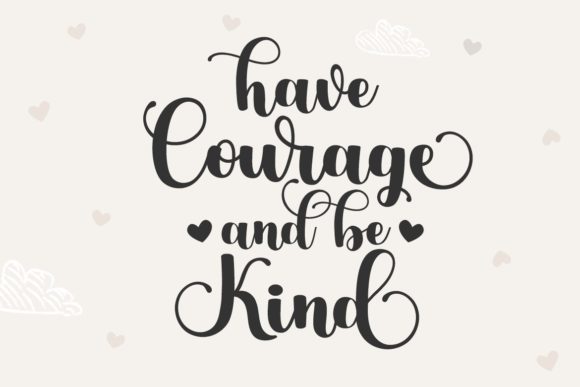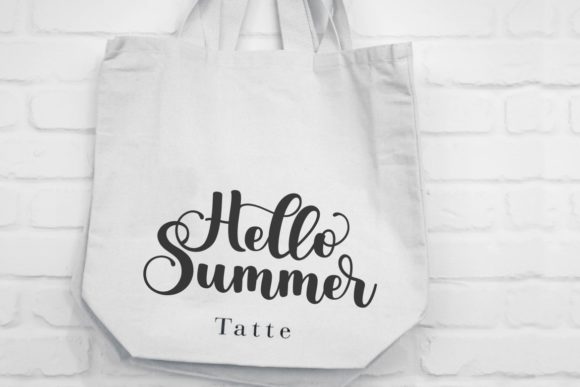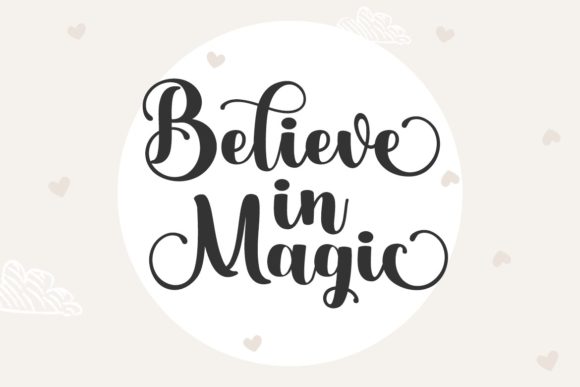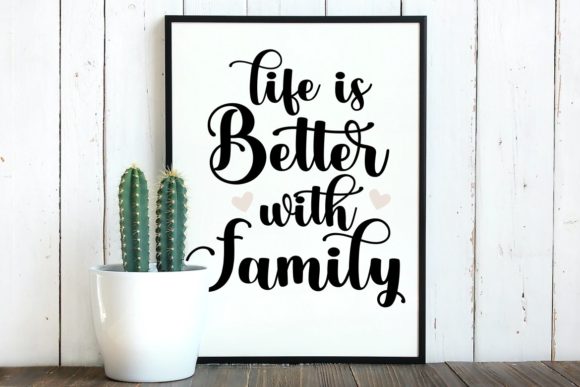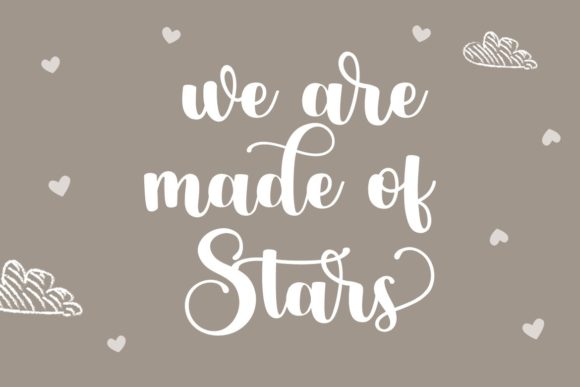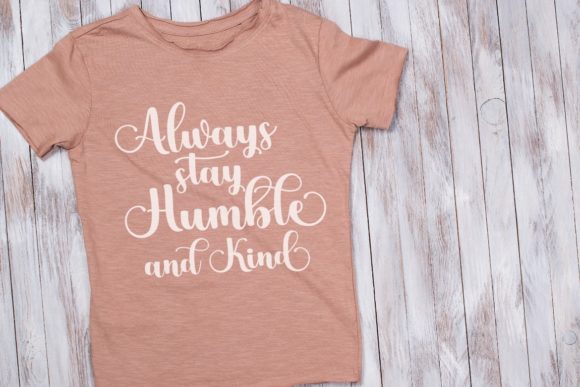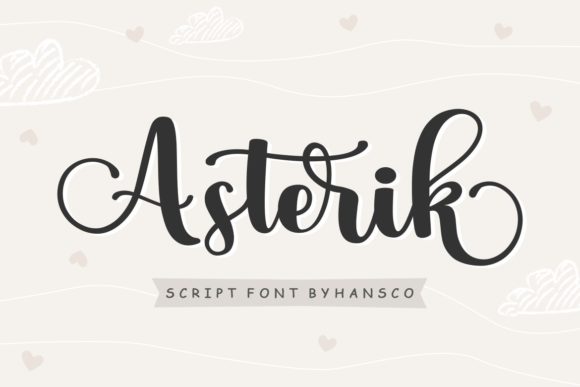
Asterik Font: Elevate Your Designs with Elegance and Boldness
In the realm of typography, few fonts manage to strike a balance between elegance and boldness. Asterik Font, however, achieves this feat with remarkable finesse. This exquisite script font is designed to infuse your projects with a touch of sophistication and charm, making it an ideal choice for designers and crafters seeking to elevate their creations.
The Distinctive Charm of Asterik Font
Asterik Font boasts an original and captivating look, characterized by its elegant and bold script style. The font’s sweet and delicate swashes add a layer of refinement, setting it apart from more conventional typefaces. Whether you’re working on letterheads, titles, or stationery, Asterik Font’s unique aesthetic is sure to leave a lasting impression.
One of the standout features of Asterik Font is its versatility. Its elegant and bold design makes it suitable for a wide range of crafty ideas. From formal letterheads and titles to more creative projects like stationery and greeting cards, Asterik Font adapts seamlessly to various design needs. This adaptability makes it an invaluable asset for designers who seek to explore different creative avenues.
Applications of Asterik Font
The applications of Asterik Font are vast and varied. Here are a few ideas to get you started:
• Letterheads and Titles: Add a touch of elegance to your business correspondence and headings with Asterik Font’s sophisticated script style.
• Stationery: Create beautiful and unique stationery sets that reflect your personal or brand style.
• Greeting Cards: Infuse your greeting cards with a dash of charm and sophistication, making them perfect for special occasions.
• Branding and Packaging: Use Asterik Font to create eye-catching logos, labels, and packaging that stand out in a crowded market.
Tips for Maximizing Asterik Font’s Potential
To get the most out of Asterik Font, consider the following tips:
• Experiment with Swashes: Don’t be afraid to play around with the font’s swashes to add a personal touch to your designs.
• Mix and Match: Combine Asterik Font with other typefaces to create visually appealing contrasts and hierarchies.
• Pay Attention to Kerning: Ensure that your text is well-kerned to maintain readability and aesthetic appeal.
Asterik Font is a game-changer for designers and crafters seeking to elevate their projects with elegance and boldness. Its unique blend of sweet and delicate swashes, coupled with PUA encoding for ease of use, makes it an indispensable tool in any design arsenal. Whether you’re working on formal documents, creative projects, or branding materials, Asterik Font is sure to leave a lasting impression. So why wait? Unlock the full potential of Asterik Font and take your designs to new heights of sophistication and charm.